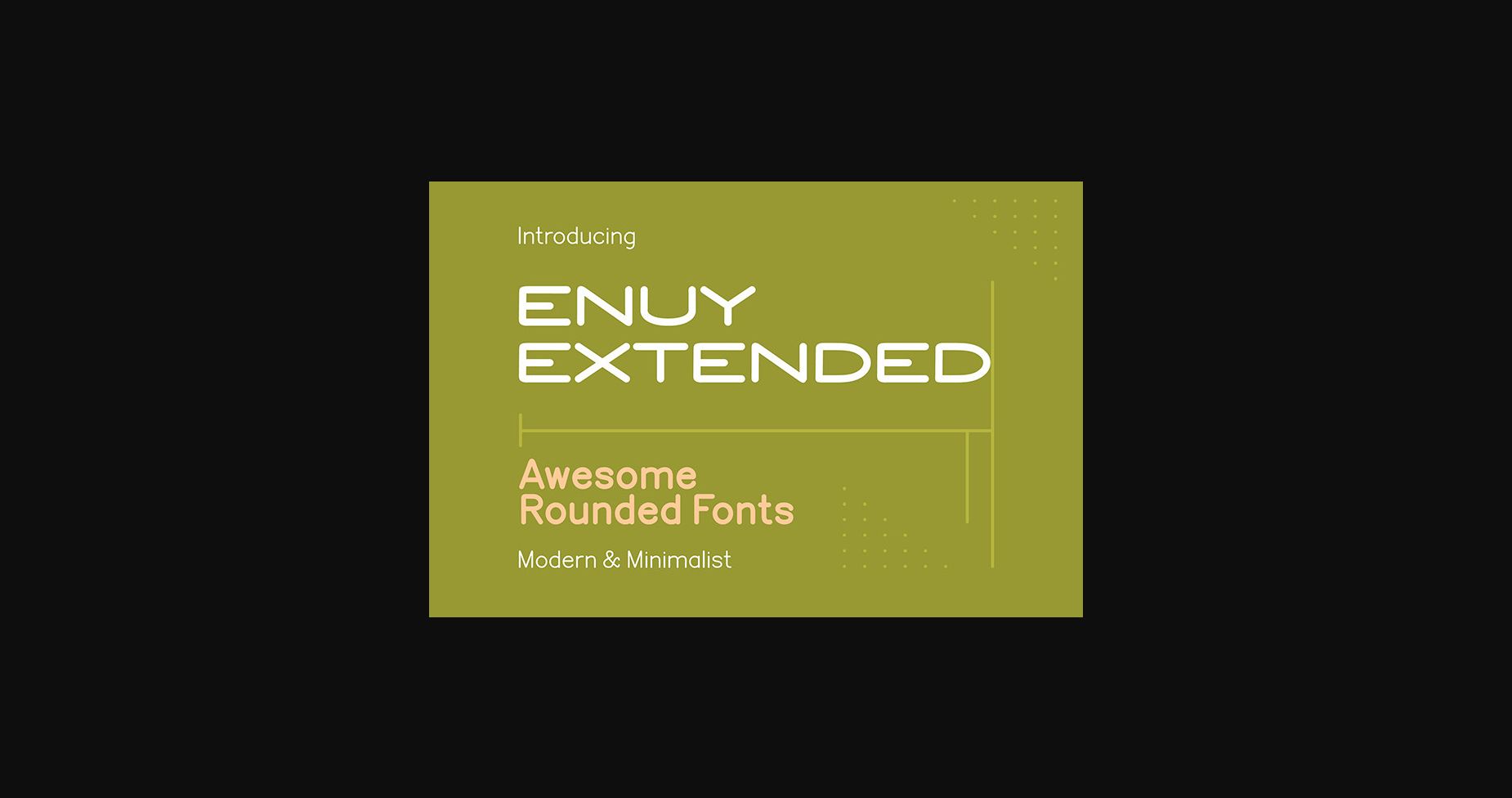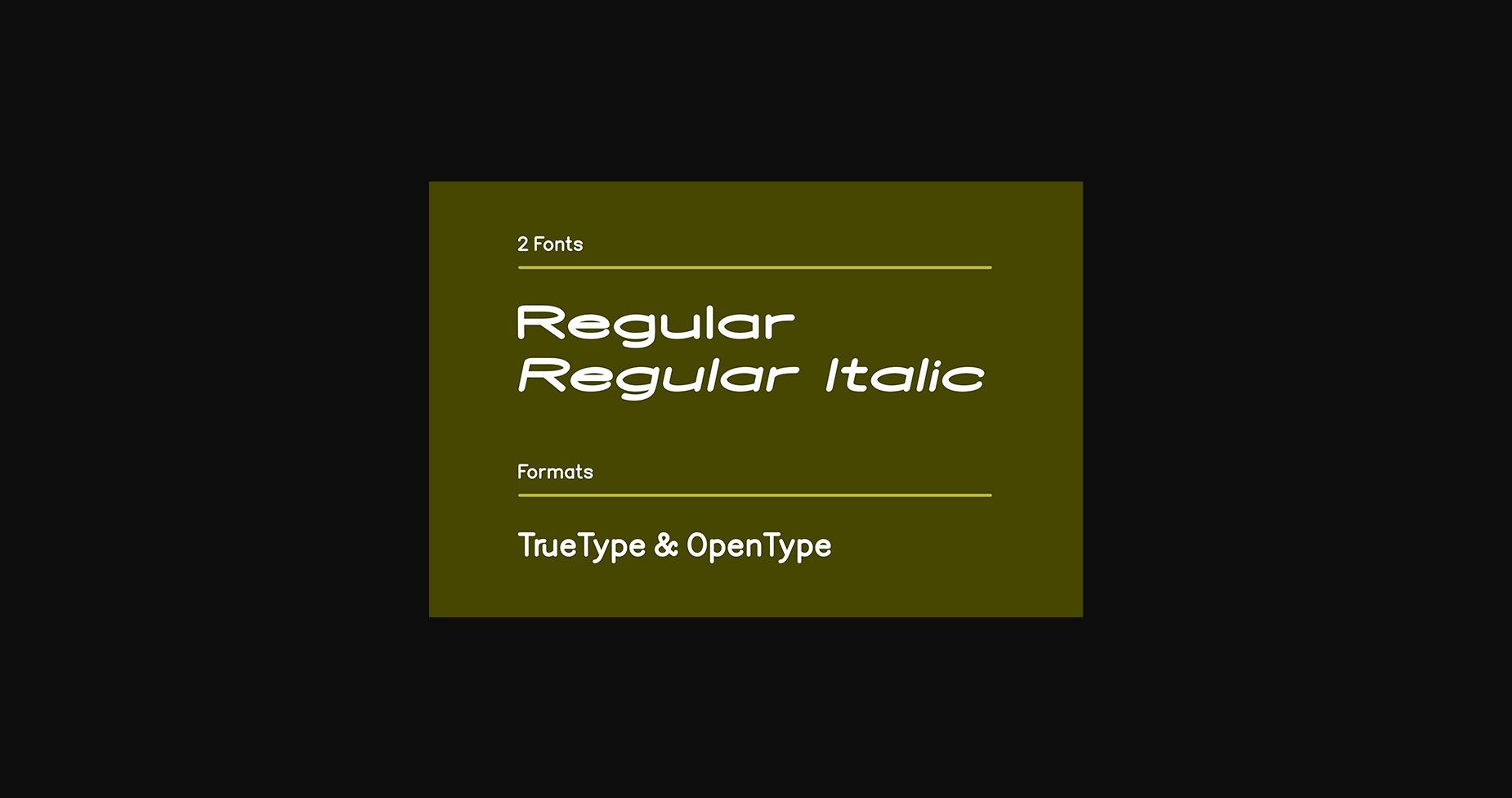
About Enuy Extended Font
Enuy Extended is a modern and unique sans serif font that is a fresh, unconventional typeface. Ideal for modern designs, digital media, and advertising, it adds a touch of individuality to any project. A modern and unique sans-serif font that brings personality and style to contemporary design projects. This font is PUA encoded which means you can access all glyphs and swashes effortlessly!